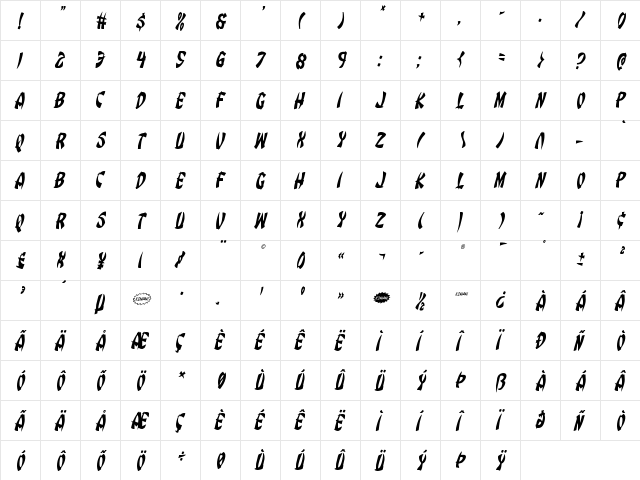
Egg Roll Condensed Italic Font Preview
Design Context for Egg Roll Condensed Italic Typeface
Egg Roll Condensed Italic is a composed and adaptable typeface that performs quietly and consistently across a wide range of design contexts. Its italic angle brings a sense of urgency and motion to the letterforms. The condensed width makes it efficient for tight spaces without sacrificing legibility.